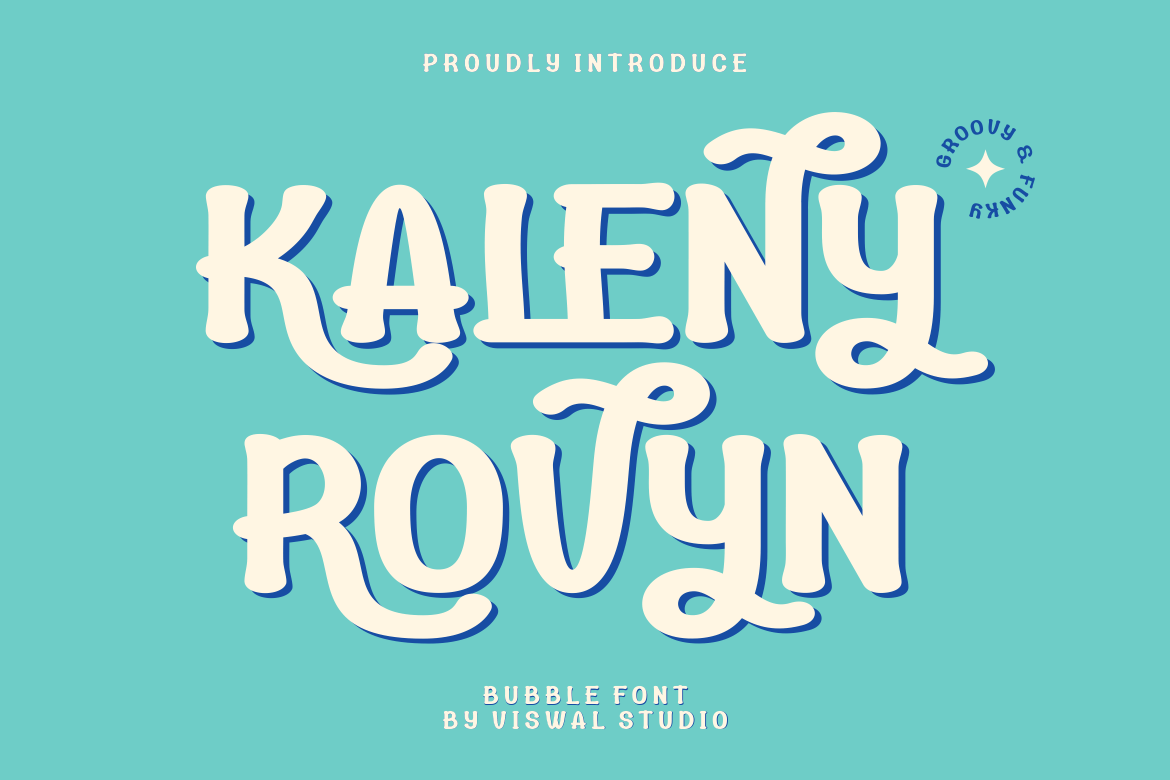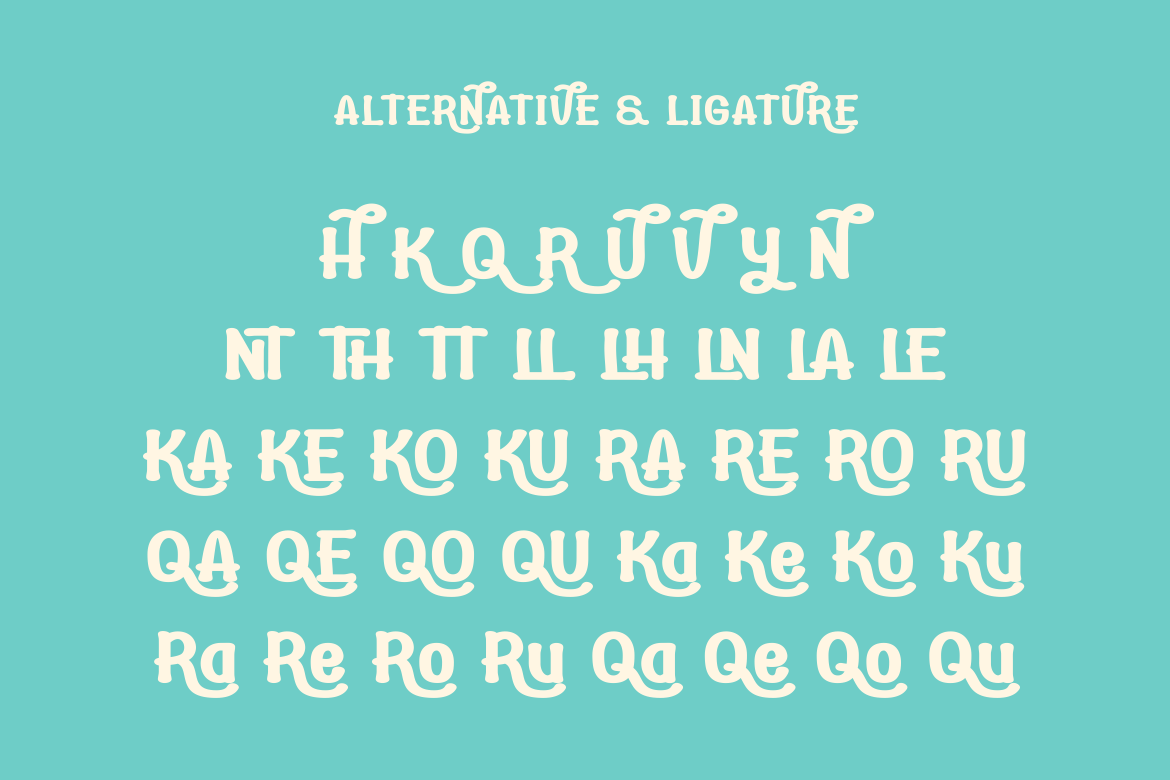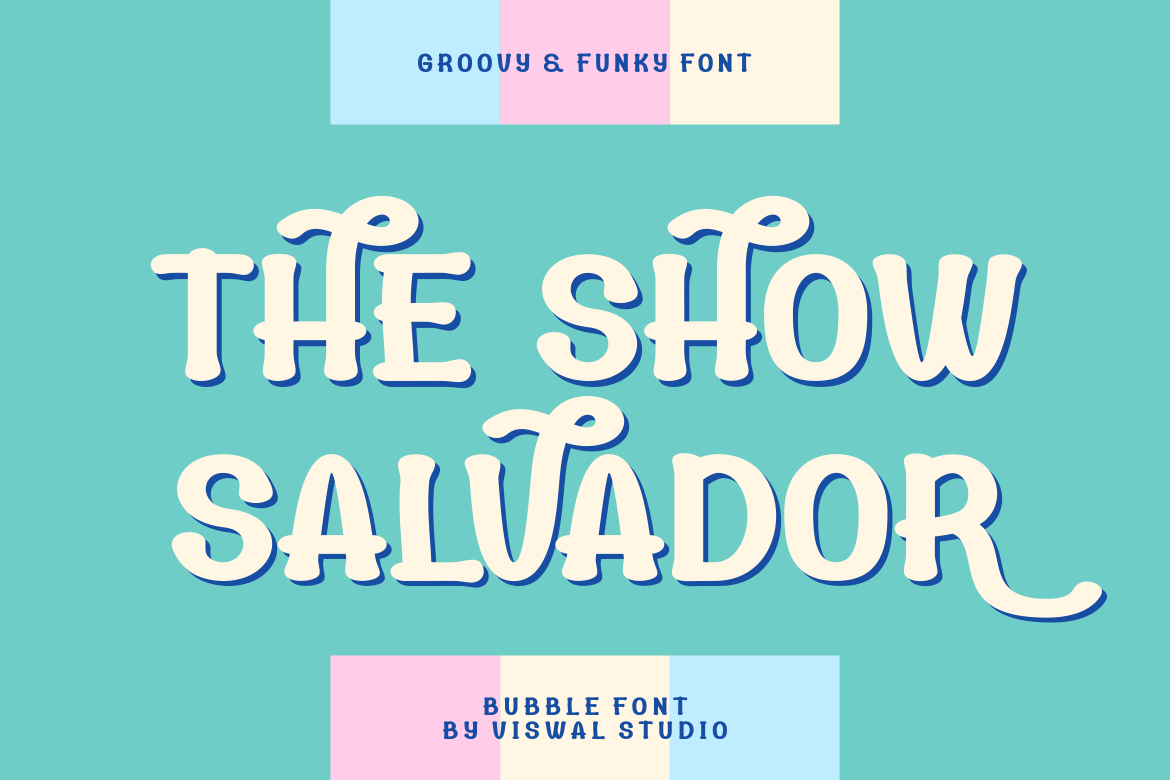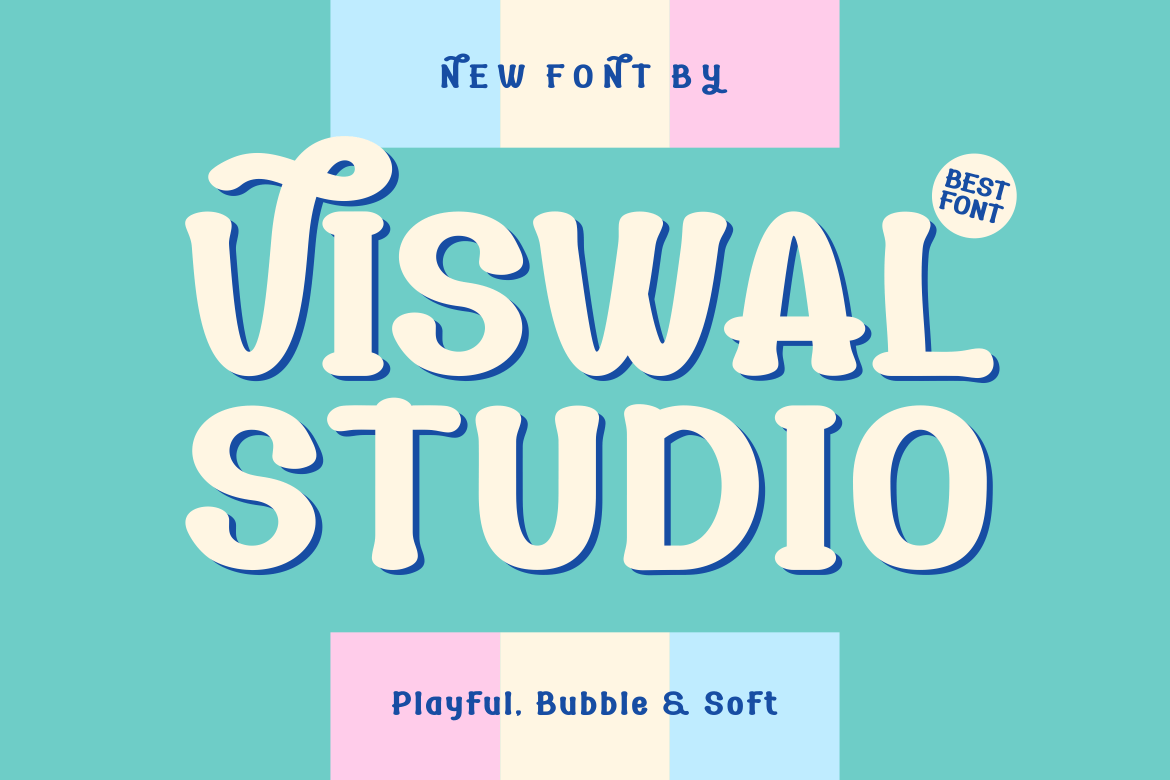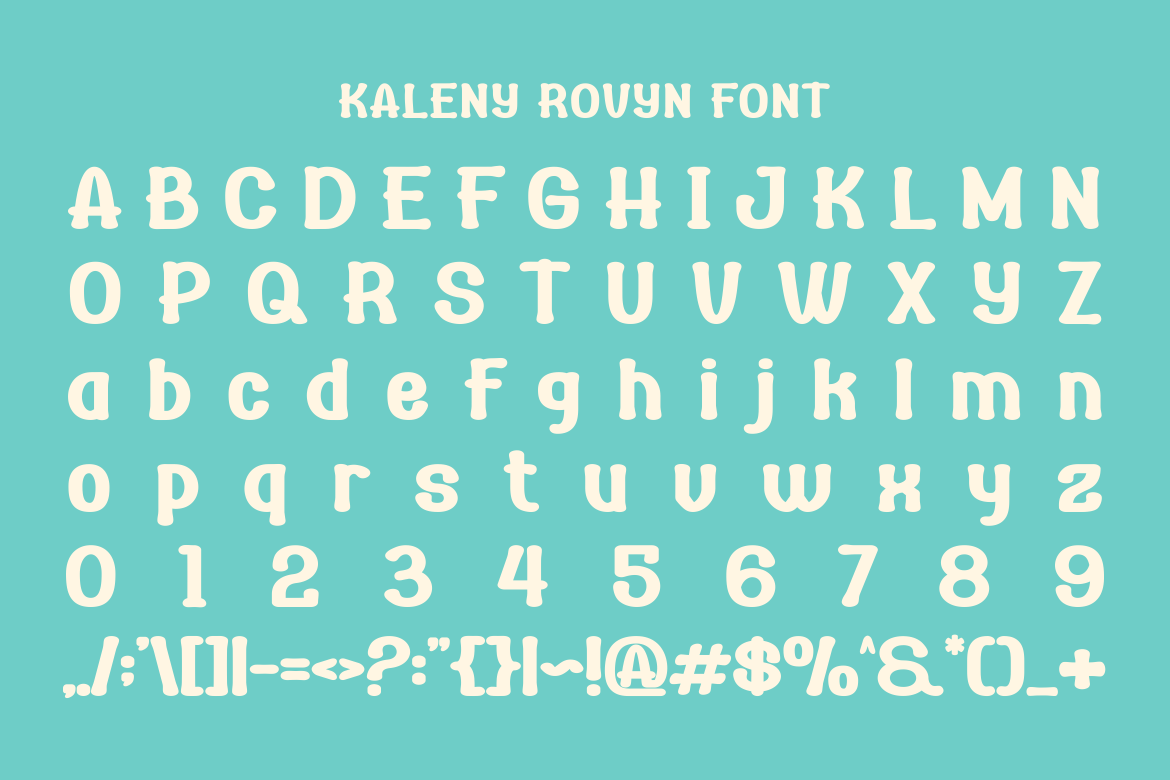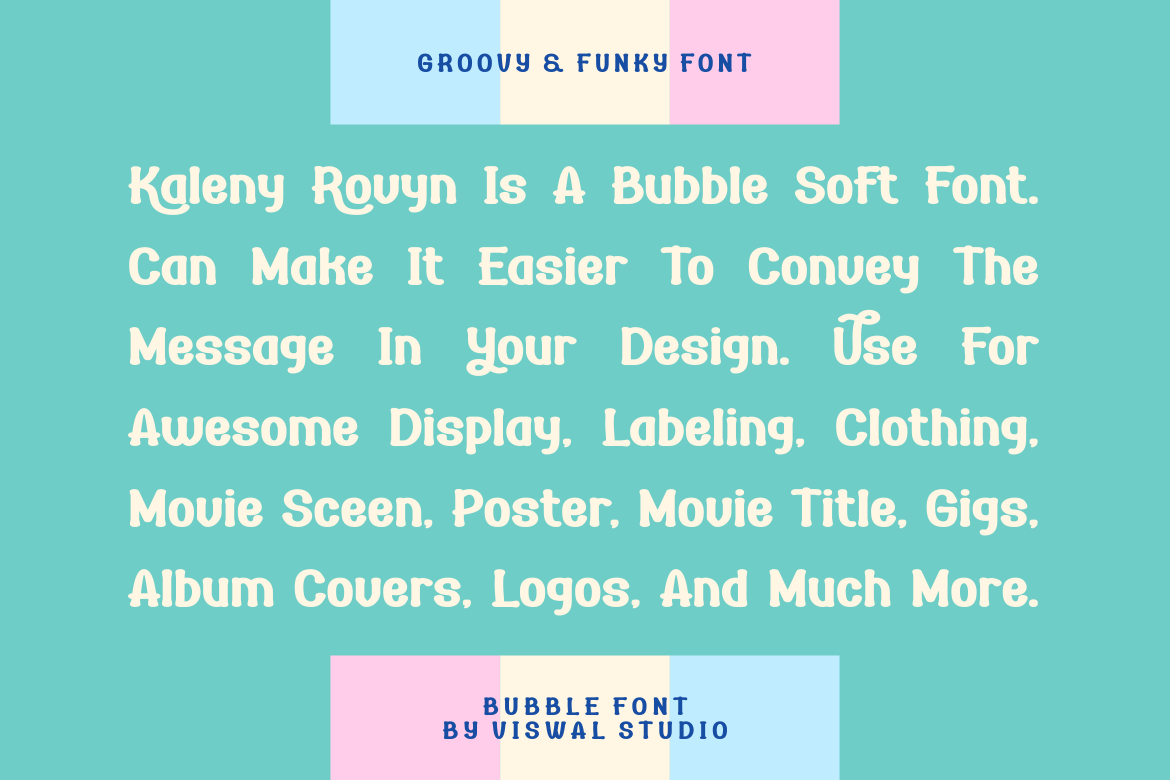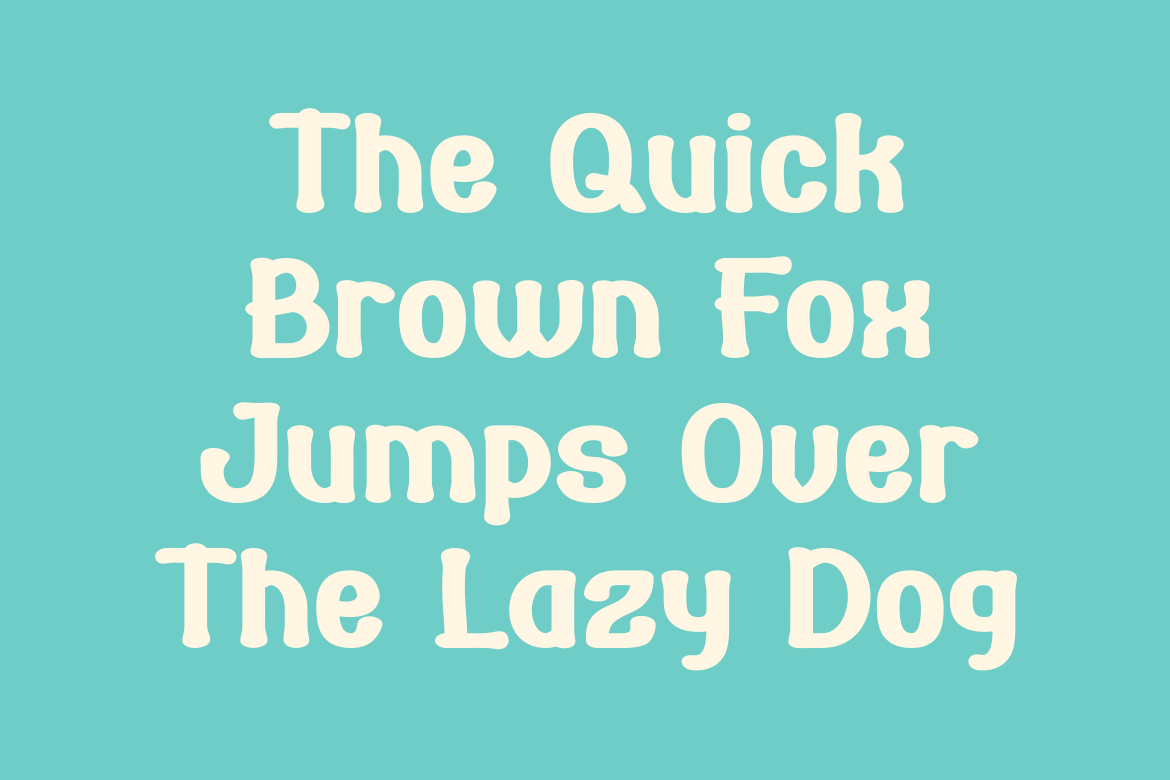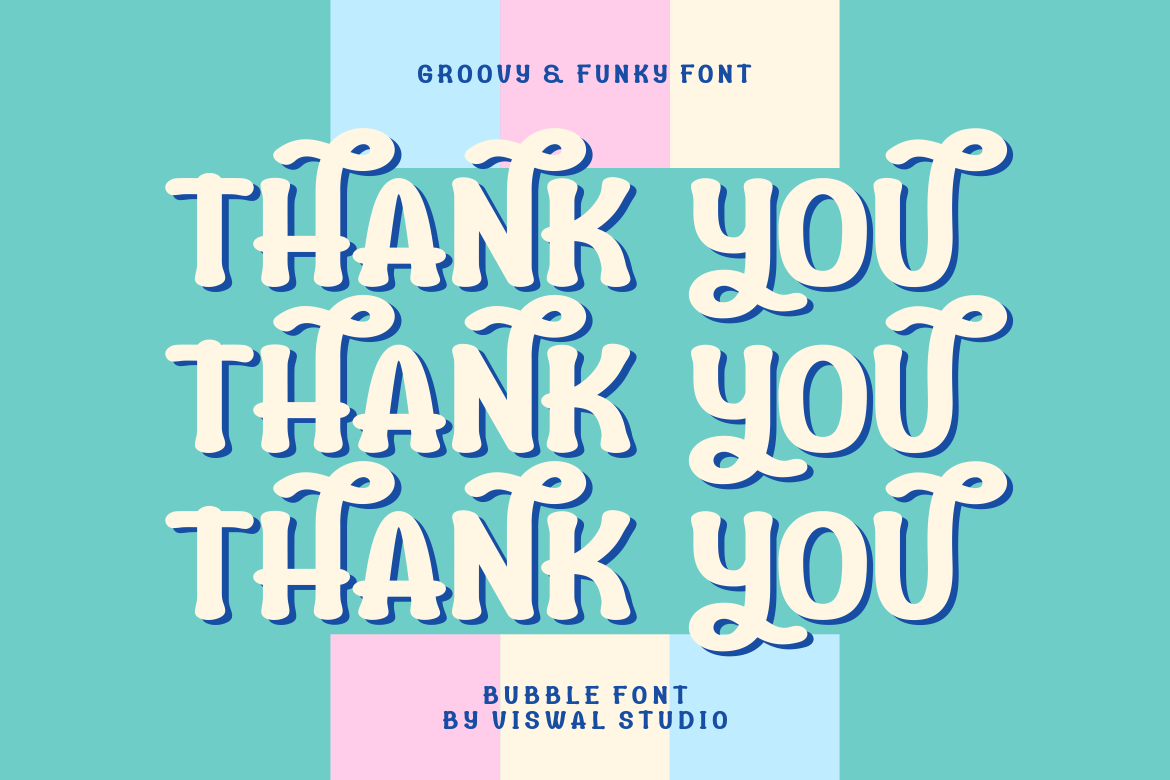
Kaleny Rovyn – Groovy & Funky Font
Presenting Kaleny Rovyn – Font is suitable for badge, labels, logo, branding, magazine, poster and etc. Our fonts have Uppercase & Lowercase, Numeral & Punctuation, Multilingual support and Opentype Features. For Amazing designs you can mix with other fonts as a complement.